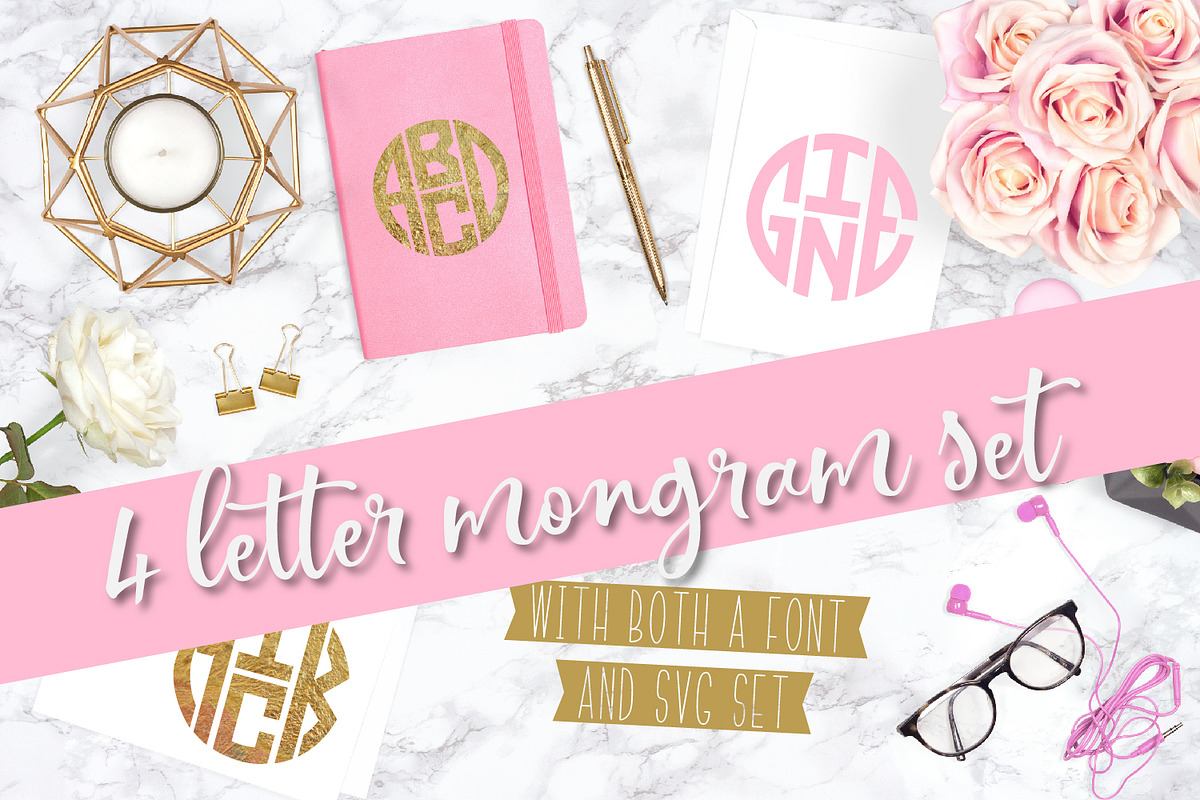
4 Letter Circle Monogram Font & Kit Free Download
4 Letter Circle Monogram Font & Kit Free Download is a unique and elegant typographic set designed specifically for creating stylish circular monograms with up to four letters. Perfect for personal branding, wedding designs, stationery, embroidery, and luxury packaging, the 4 Letter Circle Monogram Font & Kit offers a refined way to showcase initials in a custom, polished format.
Carefully crafted with symmetry and grace, 4 Letter Circle Monogram Font & Kit Free Download allows you to design sophisticated letter combinations effortlessly. The kit typically includes decorative elements and layout guides to help you build stunning monograms for both personal and professional use.